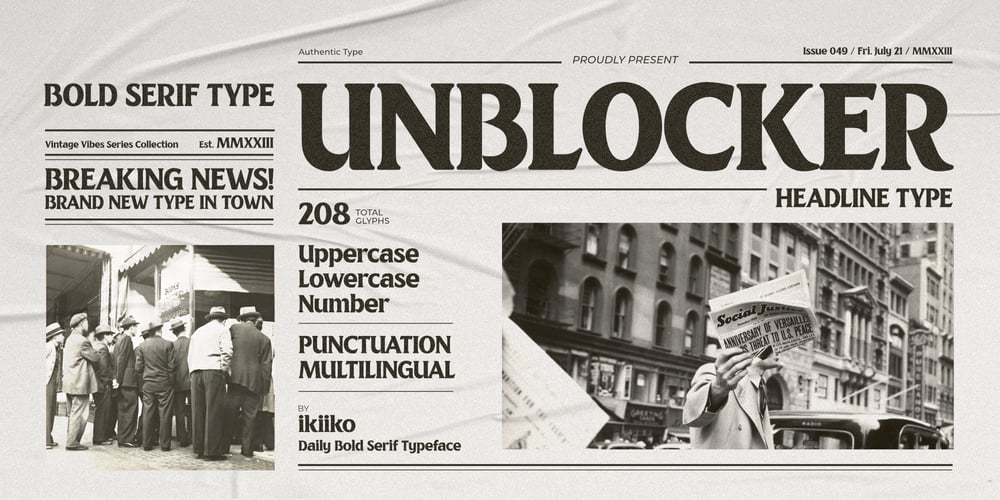
Unblocker Font Family was designed by Andhika Pradana and published by IKIIKOWRK. Unblocker contains 1 styles and family package options. Proudly present Unblocker – Headline TypeUnblocker emanates a bold personality that draws the eye and demands attention. Each letter strikes a perfect blend of boldness and finesse. The finely weighted strokes offer a sense of stability, making it an excellent choice for imposing headlines, titles, and banners that need to make an impact.Get a good offer & FREEBIE at www.ikiiko.comif you have any questions, you can contact us ikiikowrk@gmail.com